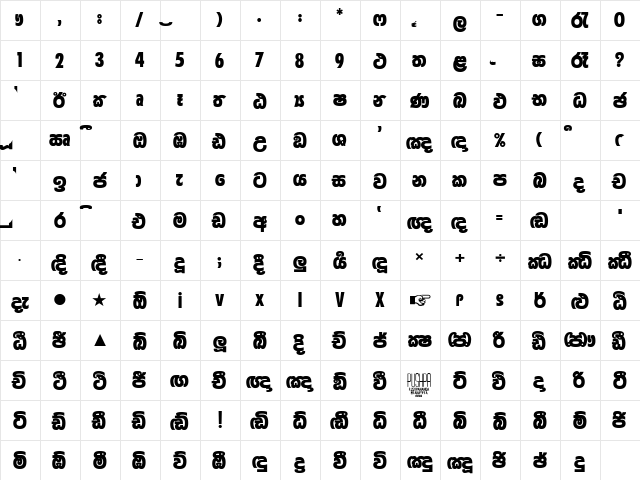
FMBasuru x
FMBasuru offers clean, dependable letterforms without strong stylistic allegiance, making it a practical choice for designers who need flexibility.